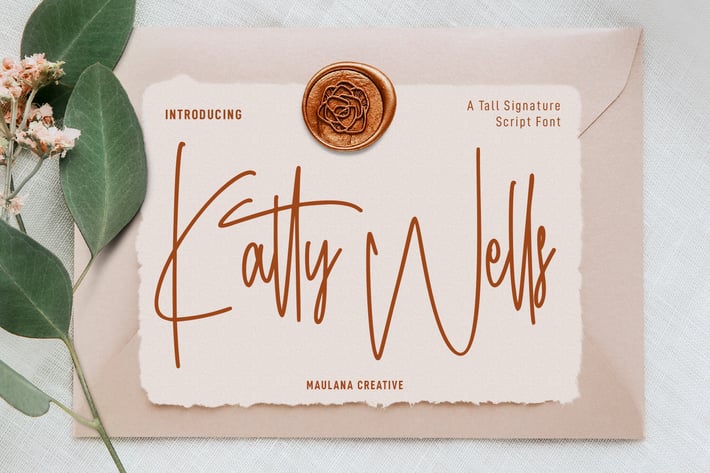
Katty Wells Signature Script Font
Katty Wells is a tall fancy script font. With condensed mono-line stroke, fun character with a bit of ligatures. To give you an extra creative work. Katty Wells font support multilingual more than 100+ language. This font is good for logo design, Social media, Movie Titles, Books Titles, a short text even a long text letter and good for your secondary text font with sans or serif. Make a stunning work with Katty Wells font.